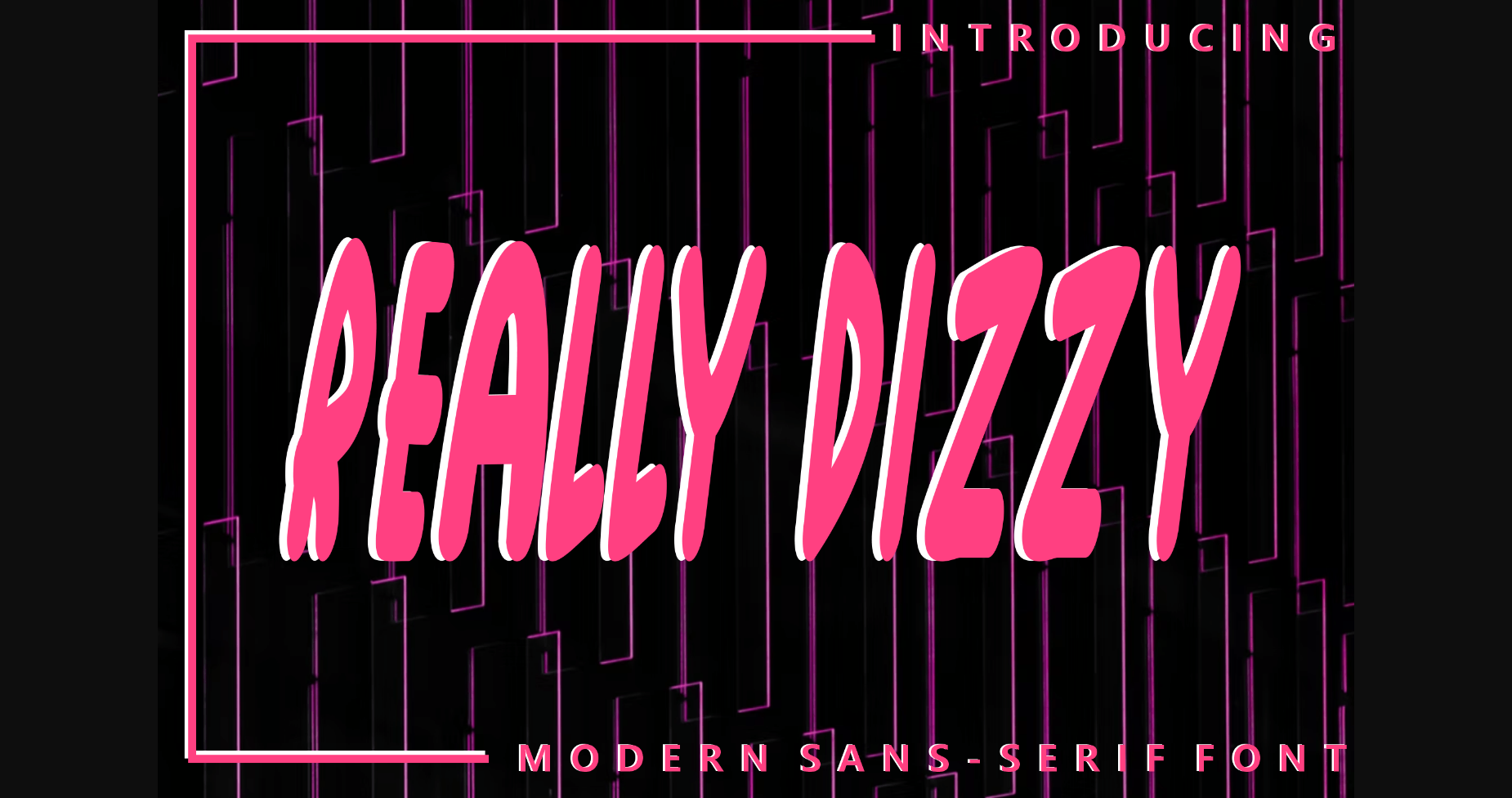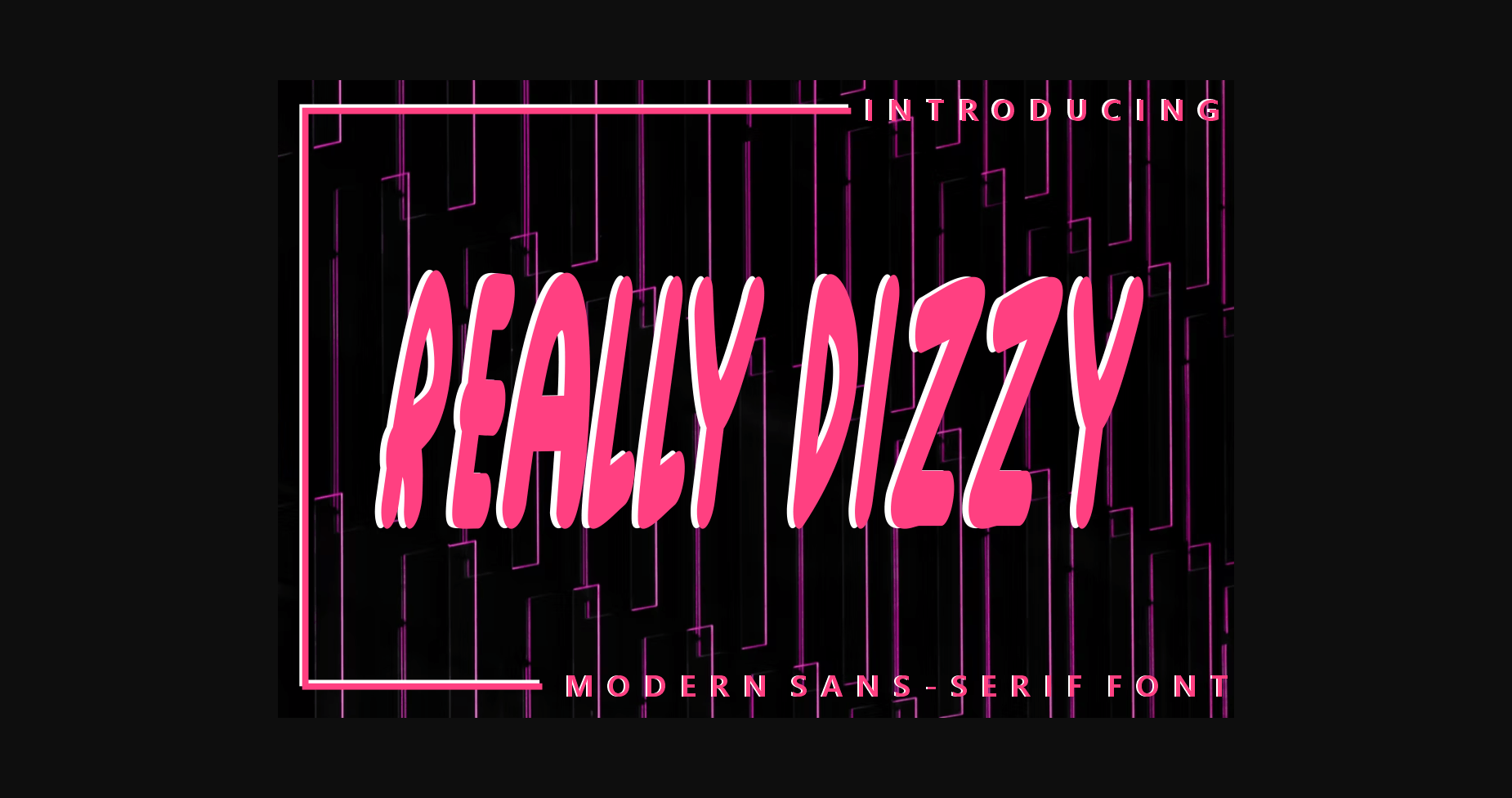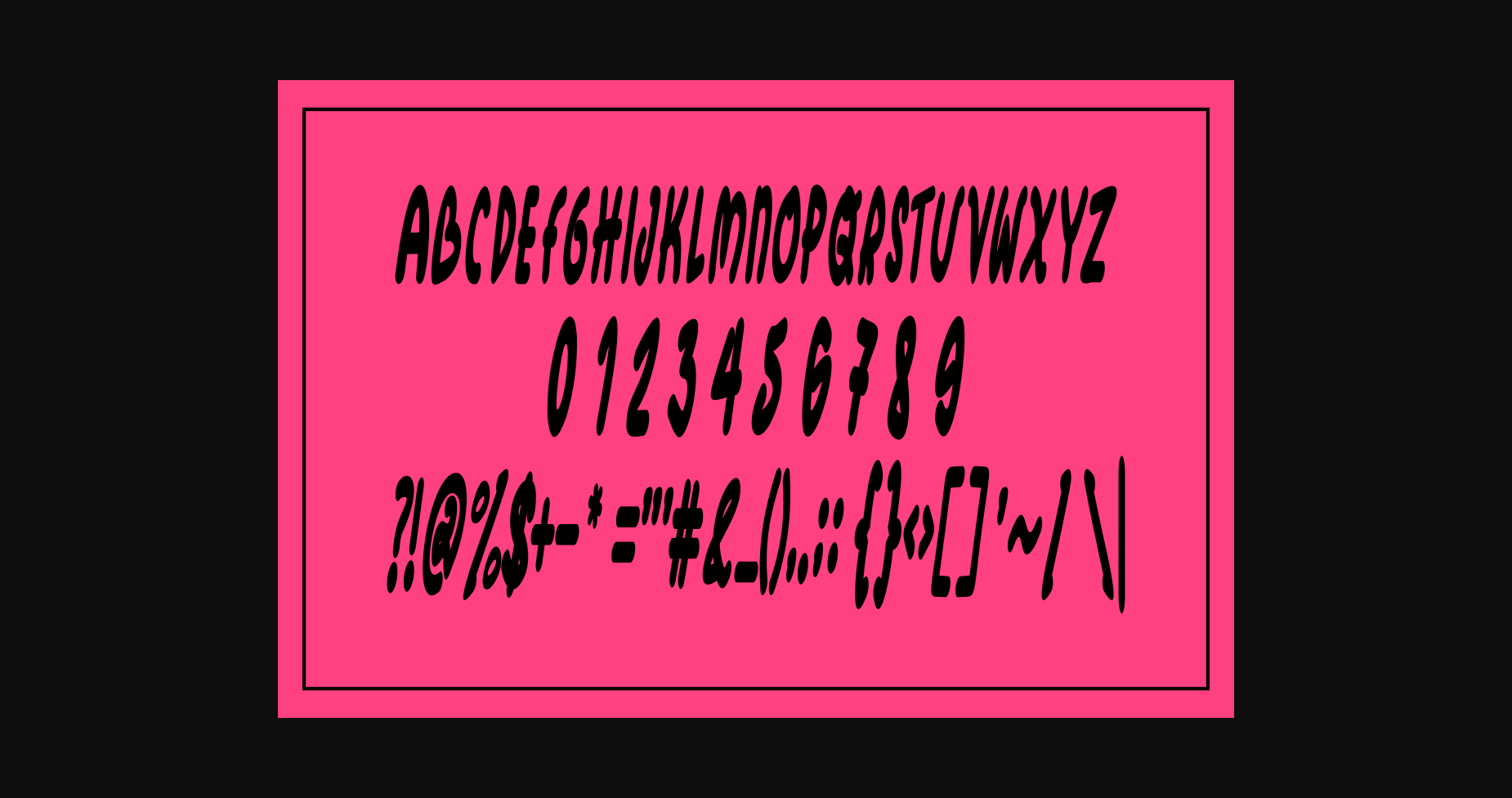
Really Dizzy Font
About Really Dizzy Font
Really Dizzy is an all-caps sans serif font perfectly suitable for creating quotes, Wedding Invitations, and lifestyle designs such as logos, titles, magazines, and more.